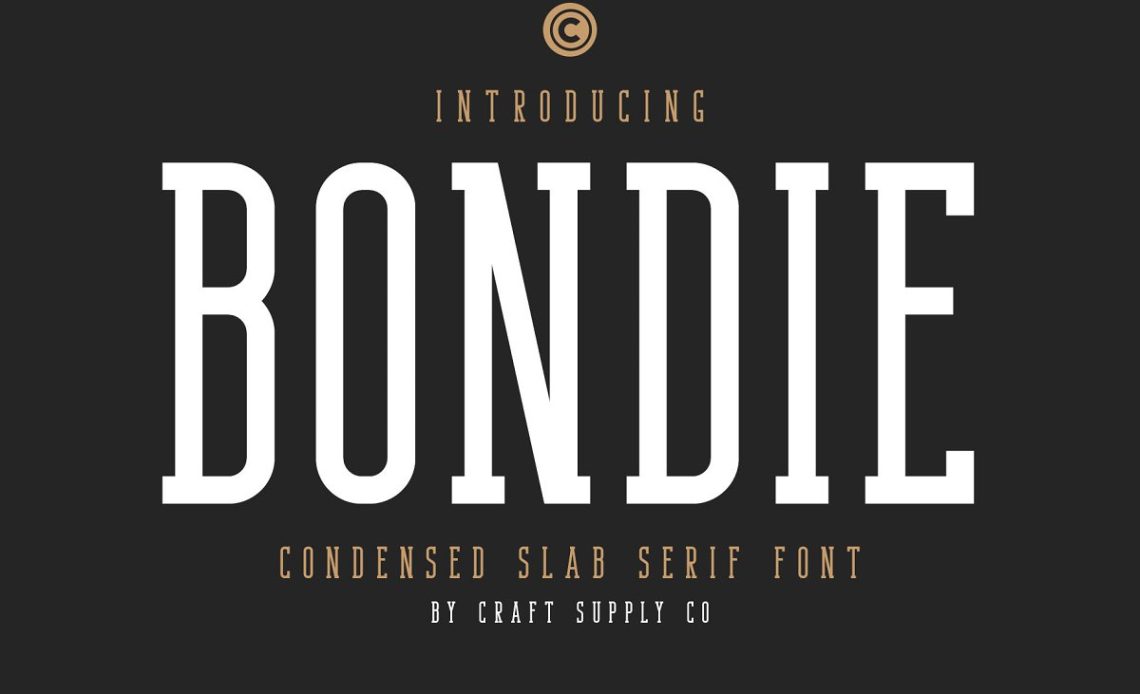
Introducing Bondie - Condensed Slab Serif Font, a stunning and elegant font created by Trio Nazzar Saputra. This font is perfect for users looking to elevate their designs with a touch of sophistication and style.
With its solid font files, Bondie - Condensed Slab Serif Font offers a condensed slab serif style that is both compact and eye-catching. It combines a variety of styles, making it suitable for a wide range of design projects.
Whether you're working on a logo, greeting cards, quotes, posters, branding, name cards, or stationary, Bondie - Condensed Slab Serif Font will add a touch of elegance to your creations. Its versatility extends to design titles, blog headers, art quotes, and typography, making it a must-have for any designer.
Not only is Bondie - Condensed Slab Serif Font suitable for modern envelope lettering or book design, but it also complements hand-drawn or watercolor design themes perfectly. Its crafty and trendy style is ideal for DIY projects, book titles, wedding fonts, and pop vintage designs.